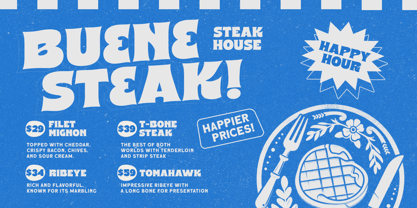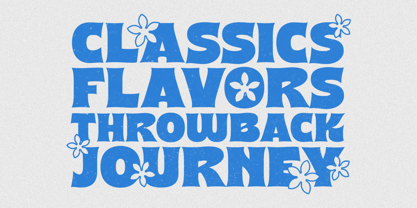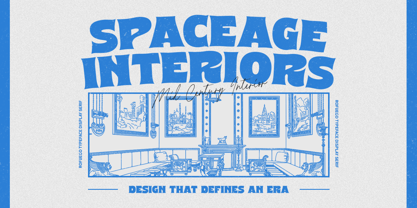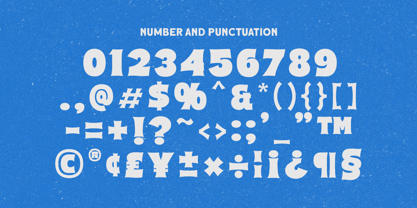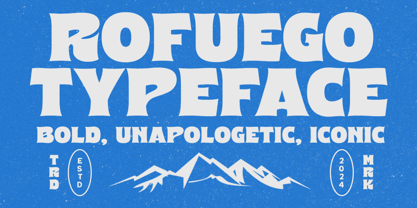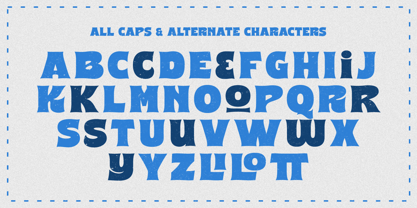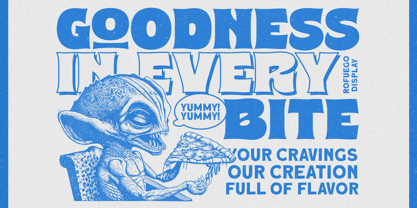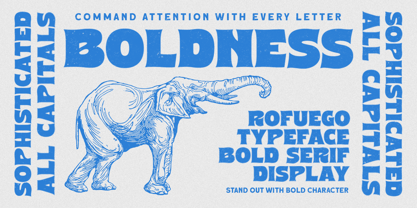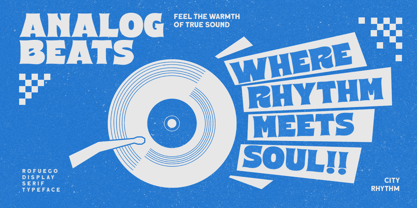
Rofuego
by Letterhend
The Rofuego Font Family was designed by Hendry Juanda and published by Letterhend. Rofuego contains 1 styles. More about this family
Rofuego is a bold display typeface that unapologetically commands attention. With a touch of nostalgia and a modern twist, it’s the perfect choice for iconic logos, headlines, and standout designs
Features :
• Uppercase & lowercase
• Numbers and standard punctuation
Designers: Hendry Juanda
Foundry: Letterhend